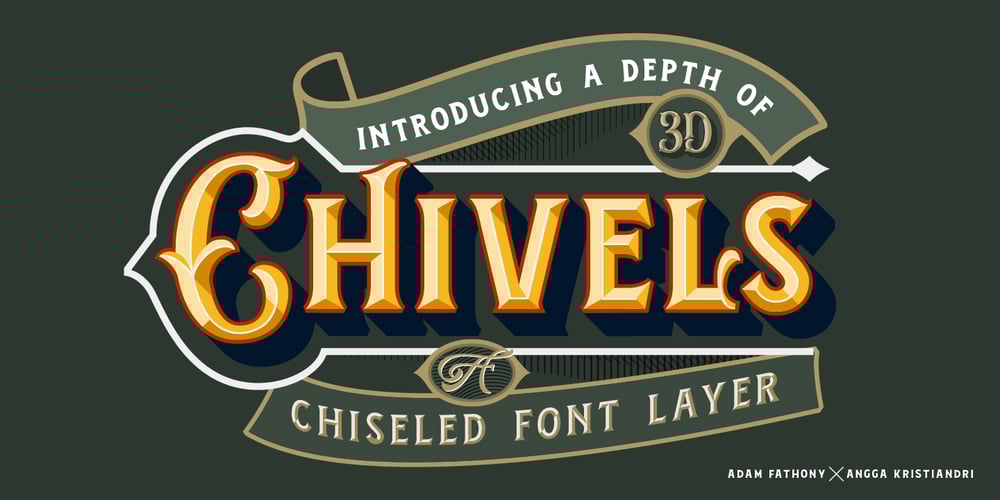
Chivels Font Family was designed by Adam Fathoni Haris, Angga Kristiandri and published by Adam Fathony. Chivels contains 6 styles and family package options. Chivels : Vintage Chiseled 3D Type System This vintage type family combines chisel effects and pinstripe styling to give it more life. Chivels comes with six fonts that you can combine with each other to get different effects. Starting with a base, you can add more fonts in front to get inner, chisel light, and chisel dark effects. You can also add fonts behind to add outline and shadow effects. Alternate characters are available for every single alphabetical character. In the OTF version, you can select the alternate characters in the Glyphs or Open Type panels. If you’re using software that doesn’t include Open Type features, you can use the TTF version.